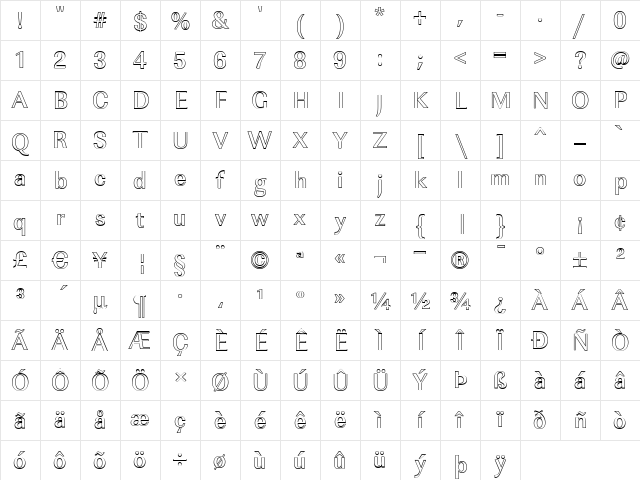
ImperialOu-Medium Regular
Design Context for ImperialOu-Medium
ImperialOu-Medium is a composed and adaptable typeface that performs quietly and consistently across a wide range of design contexts.
Pro Tip: Use ImperialOu-Medium in both headline and body roles to test its range before committing to a single application.